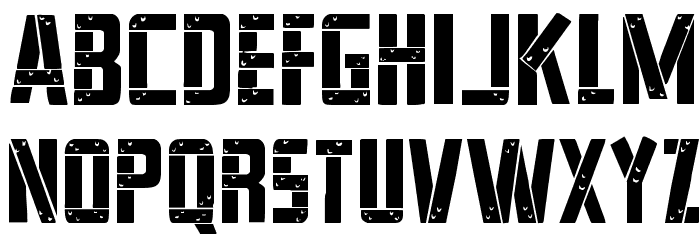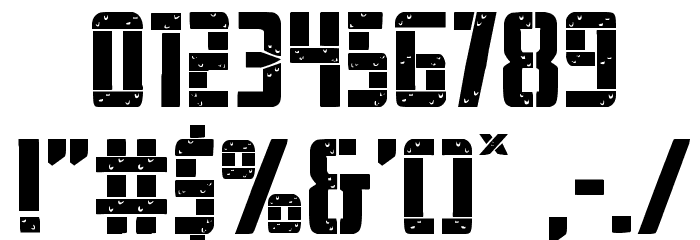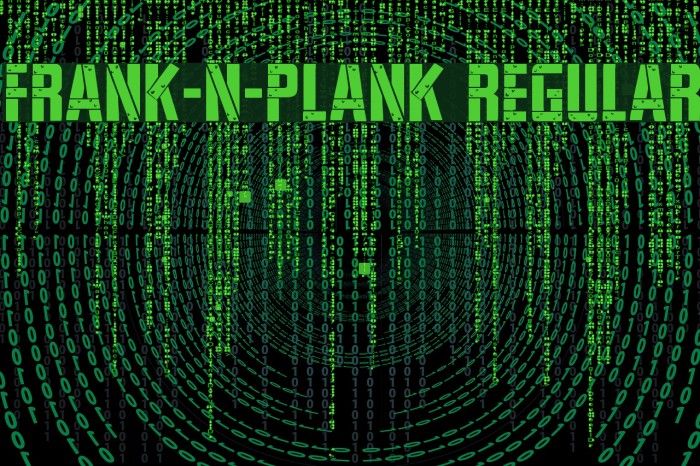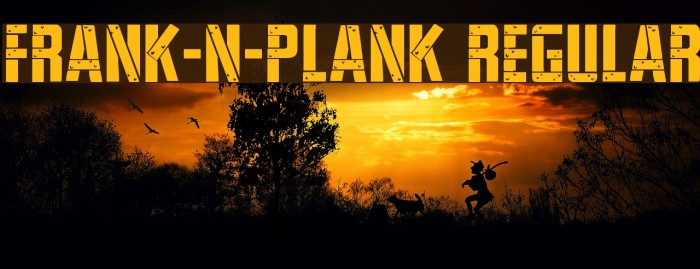
Frank-n-Plank Regular Font
This font features a bold, industrial design with a unique pattern of bolts and rivets embedded within each character, giving it a mechanical and rugged appearance. The uppercase and lowercase letters maintain a consistent blocky structure, with sharp angles and straight lines that convey a sense of strength and durability. The numbers and special characters follow the same design principles, ensuring uniformity across all glyphs. The font's distinct style makes it ideal for projects that require a strong visual impact, such as posters, logos, and branding materials. Its decorative elements add a layer of complexity, making it suitable for creative and thematic designs.
A bold, industrial font with embedded bolt patterns, ideal for impactful designs.
- Proposed Projects: Posters, logos, branding materials, themed designs, industrial-themed projects.
- Overall Style: Industrial, Decorative